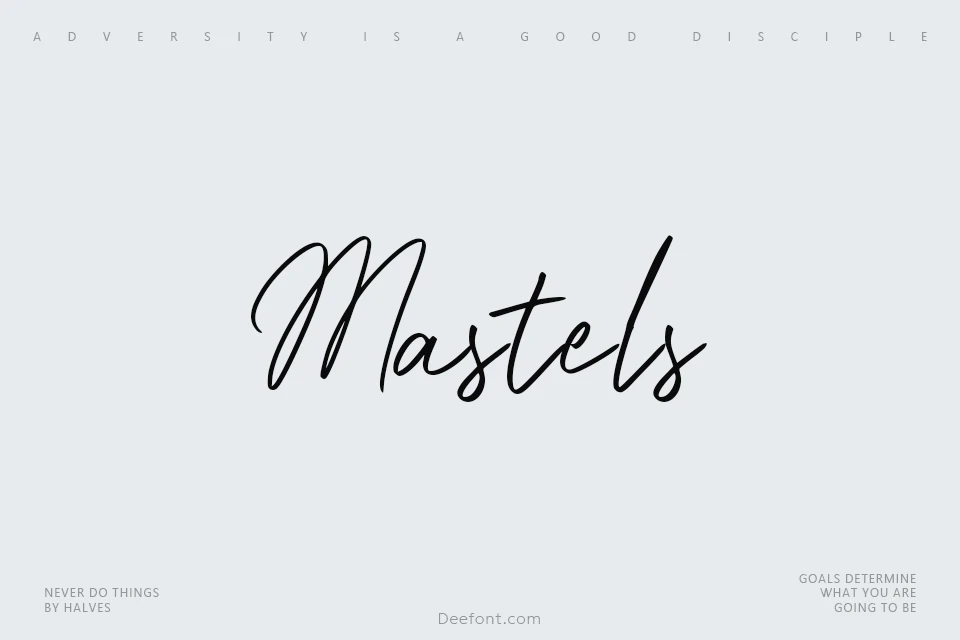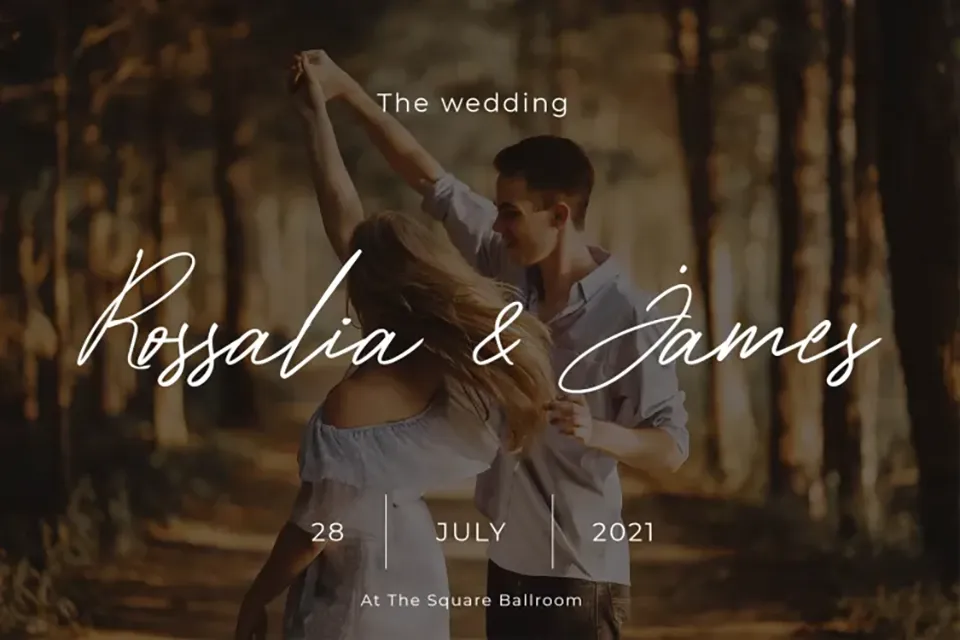
Mastels Font
Mastels – Handwritten Script is an elegant typeface that mimics authentic handwriting. This versatile font is perfect for fashion brands, e-commerce, wedding boutiques, and businesses aiming for a chic, upscale appearance. It’s ideal for logos, greeting cards, posters, branding, stationery, blog headers, and book designs. With its trendy, handdrawn aesthetic, Mastels adds a touch of sophistication to any project, from DIY crafts to modern envelope lettering.